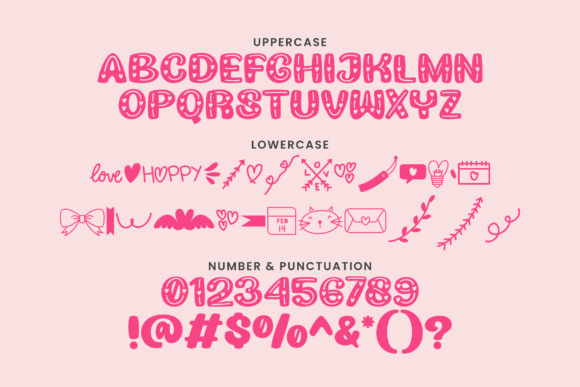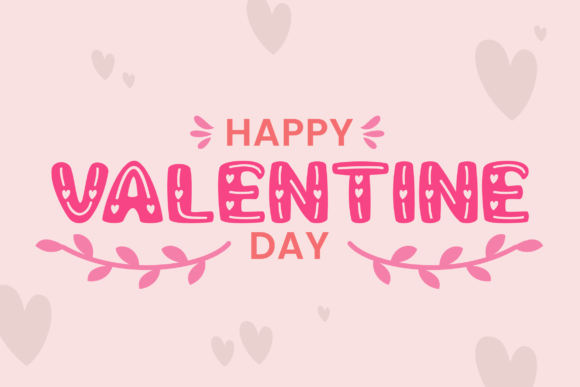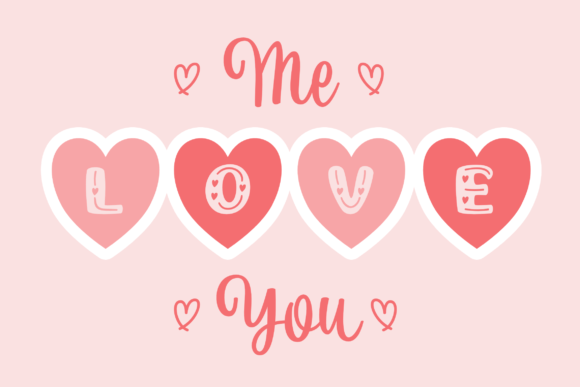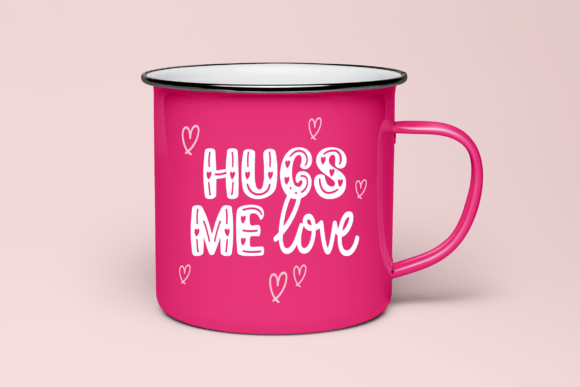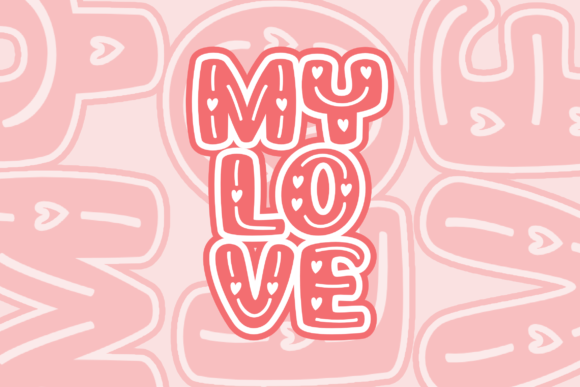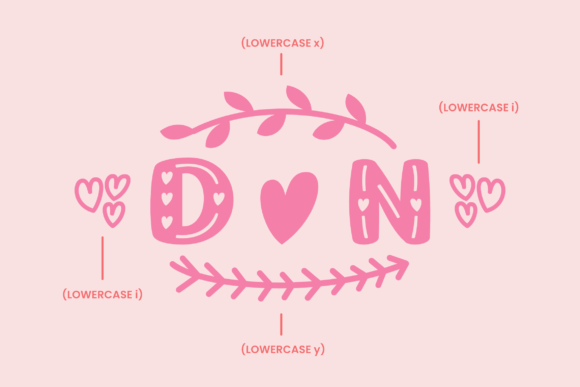
Introduction to Loving Stroke Font Font
Fonts play a crucial role in design, and the Loving Stroke Font font is a typeface that brings both character and versatility to any project. Whether you’re working on a branding project, a website, or a print design, the Loving Stroke Font font offers a unique style that can elevate your work.
Loving Stroke is a sweet and adorable font.
It has decorative uppercase letters and cute lowercase dingbats full of love symbols and elements This unique, lovely combo will help you create unique Valentine’s Day designs.
Key Features of Loving Stroke Font Font
Why Choose Loving Stroke Font Font?
The Loving Stroke Font font is more than just a typeface – it’s a design tool that helps you communicate your message with style and clarity. Its unique character set and versatile design make it suitable for a wide range of applications, from elegant invitations to bold headlines.
With its carefully crafted letterforms and balanced proportions, the Loving Stroke Font font ensures readability and visual appeal across all mediums.
What makes Loving Stroke Font font special?
The Loving Stroke Font font stands out with its unique design, exceptional readability, and versatility across various design applications.